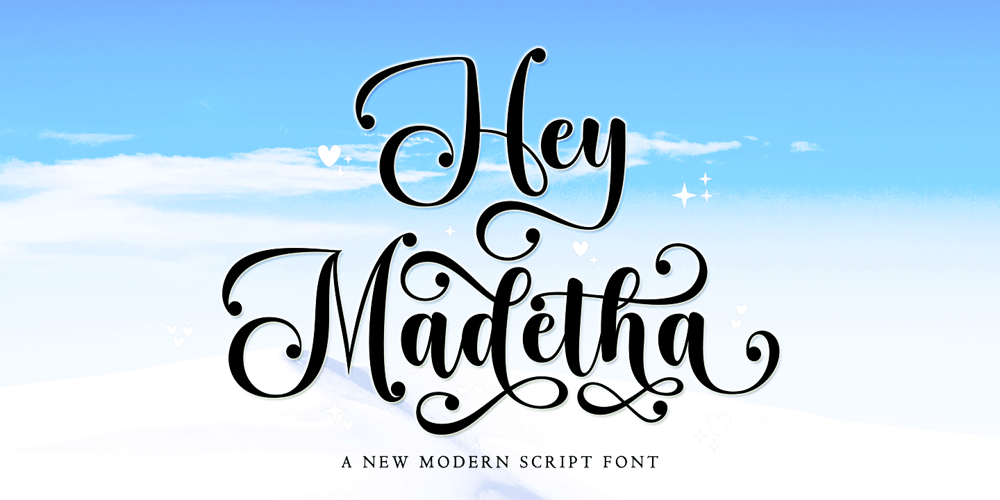
Hey Madetha Font Family was designed by Muhammad Nazar and published by Bungletter. Hey Madetha contains 2 styles and family package options. Hey Madetha is a very beautiful, elegant and unique calligraphy script font. Expertly designed to become a true favorite, this font has the potential to take your creative ideas to the highest level!This font is PUA coded which means you can easily access all the glyphs.Hey Madetha is attractive because it is sleek, clean, feminine, sensual, glamorous, simple and easy to read, thanks to its many luxurious letter connections. I also offer a number of viable alternative styles for all letters. Classic style is very suitable to be applied in various formal forms such as invitations, labels, restaurant menus, logos, fashion, make up, stationery, novels, magazines, books, greeting cards/weddings, packaging, labels or all kinds of advertisements. for your purposes. . . . . . .Contains full set:-2 Type Font-Uppercase-Lowercase-Alternative- Ligature- Punctuation-Number- Multilingual support.Need help or have questions let me know. I’m happy to help.Thank you & Congratulations on the Design.